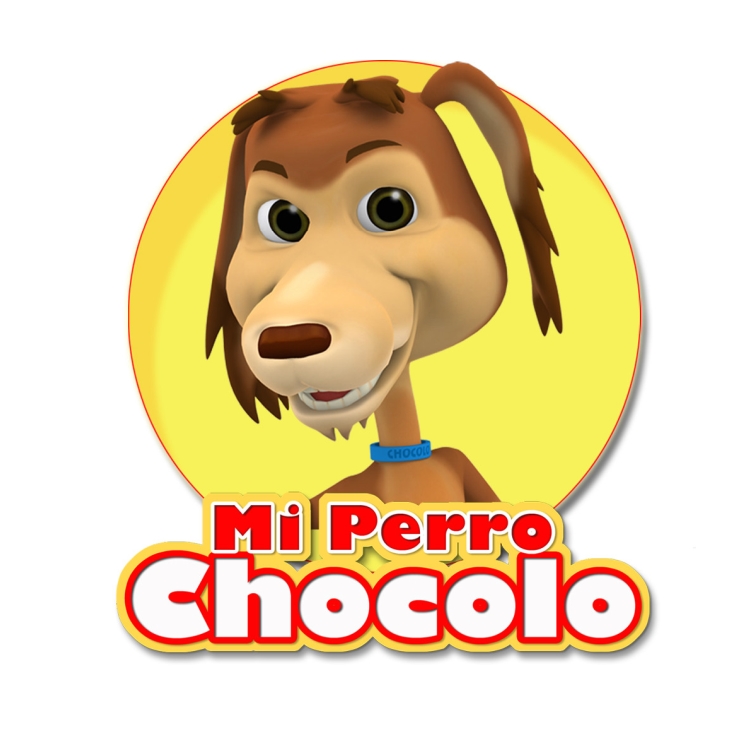
My Dog Chocolo Font
AnimationMy Dog Chocolo is a Chilean Spanish-speaking Youtube channel that uploads content for children. The channel offers a variety of content, including vlogs, challenges, and other fun activities that showcase Chocolo's daily life.
The logo for My Dog Chocolo channel most probably uses Gill Sans Ultra Bold. Gill Sans is a sans-serif typeface designed by Eric Gill in the 1920s.